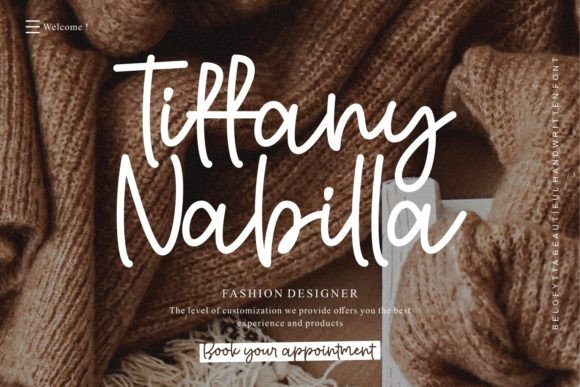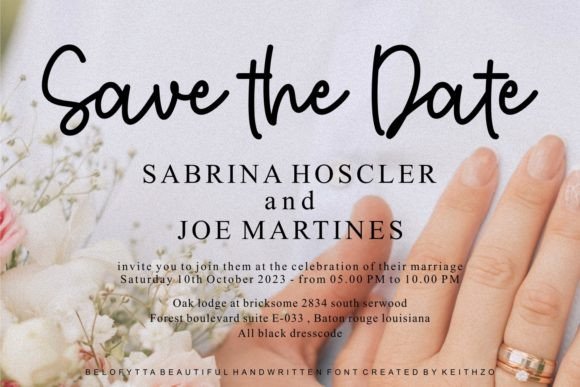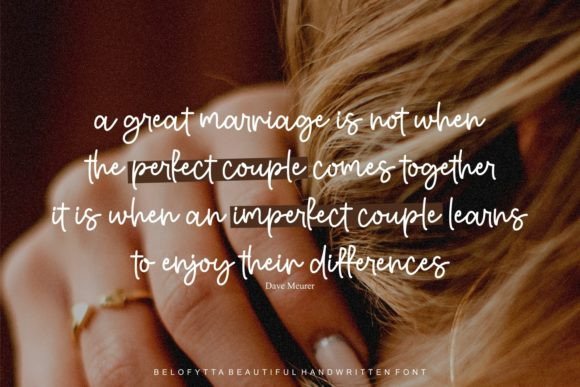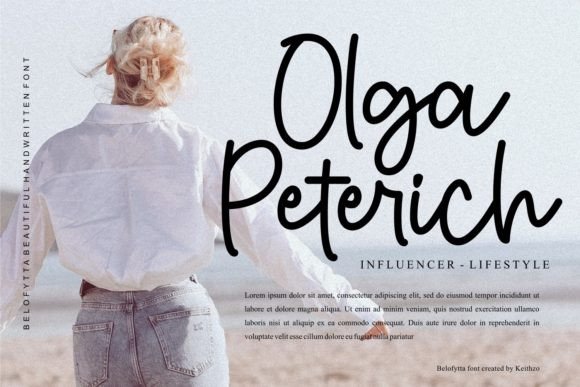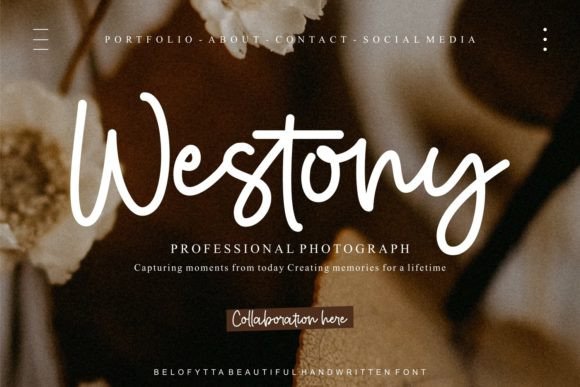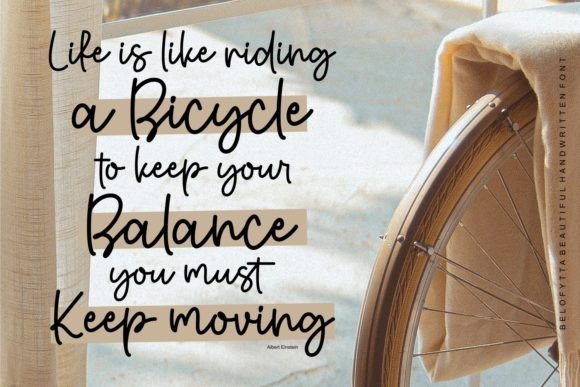
Introduction to Belofytta Font Font
Fonts play a crucial role in design, and the Belofytta Font font is a typeface that brings both character and versatility to any project. Whether you’re working on a branding project, a website, or a print design, the Belofytta Font font offers a unique style that can elevate your work.
Belofytta is an elegant handwriting font that boasts sophisticated charm with its delicate curves and flowing lines.
Ideal for enhancing the elegance of wedding invites, social media graphics, or branding materials, it adds a touch of refinement to any project It is also PUA encoded which means you can access all of the glyphs and swashes with ease.
Key Features of Belofytta Font Font
Why Choose Belofytta Font Font?
The Belofytta Font font is more than just a typeface – it’s a design tool that helps you communicate your message with style and clarity. Its unique character set and versatile design make it suitable for a wide range of applications, from elegant invitations to bold headlines.
With its carefully crafted letterforms and balanced proportions, the Belofytta Font font ensures readability and visual appeal across all mediums.
What makes Belofytta Font font special?
The Belofytta Font font stands out with its unique design, exceptional readability, and versatility across various design applications.